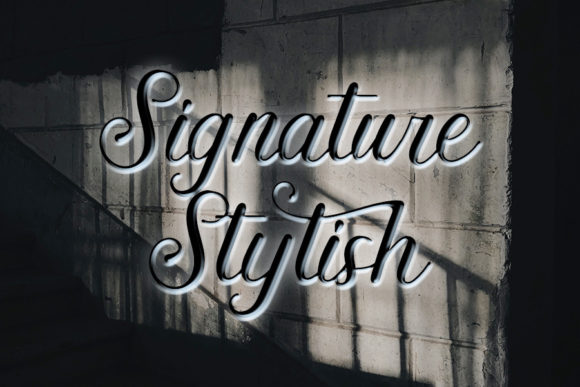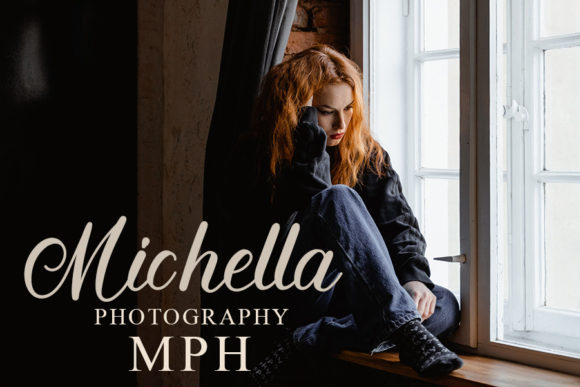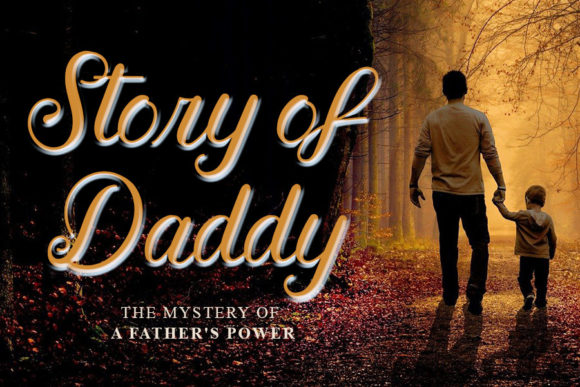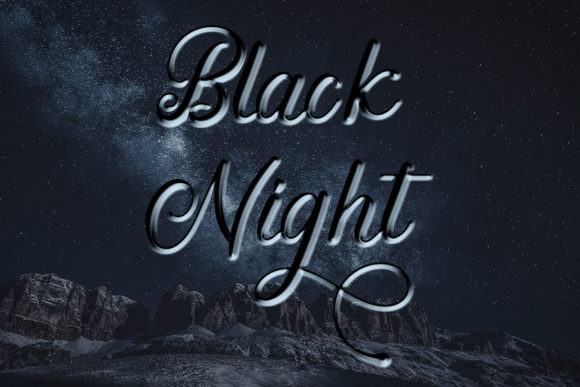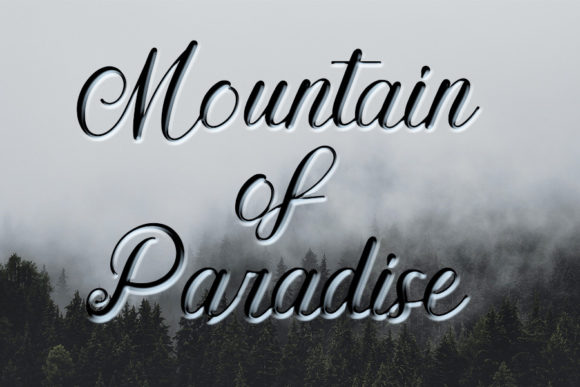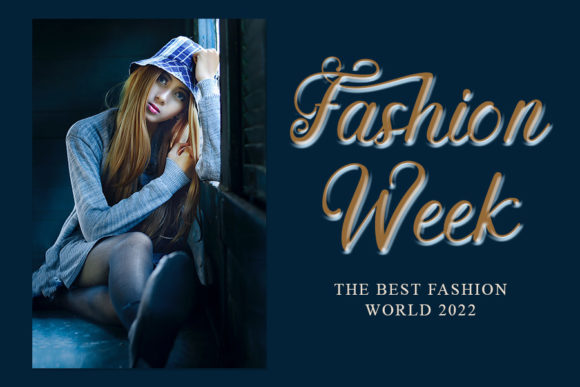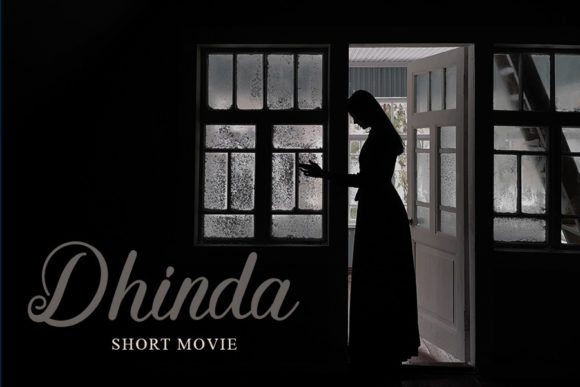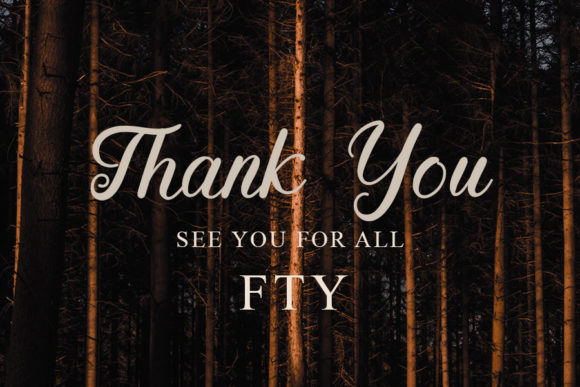
Biography Font
About Biography Font
Biography is a delicate and elegant handwritten font. Its distinct and well balanced letters make this font a masterpiece. Fall in love with its incredibly versatile style and use it to create spectacular designs!